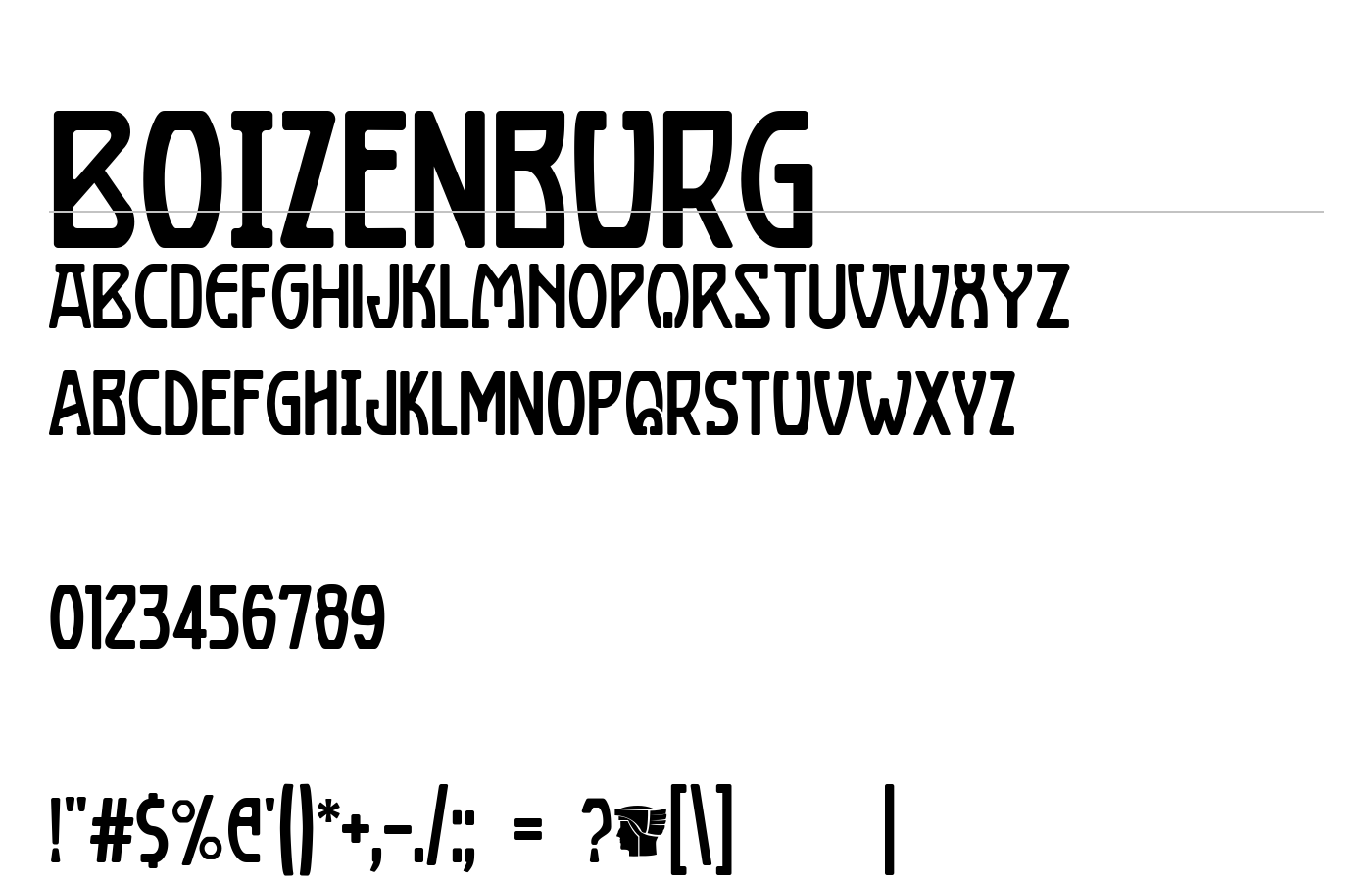
Boizenburg is a sans serif font with a unique, slightly condensed shape and medium contrast that gives it a bold yet approachable look. Its quirky, narrow letterforms and subtle irregularities lend a playful, modern personality, making it a great choice for creative logos, headlines, and projects seeking an unconventional, eye-catching style. This font works well where distinctive impact and friendly uniqueness are needed.
Boizenburg Font
About Boizenburg Font
| Designer | Mario Arturo |